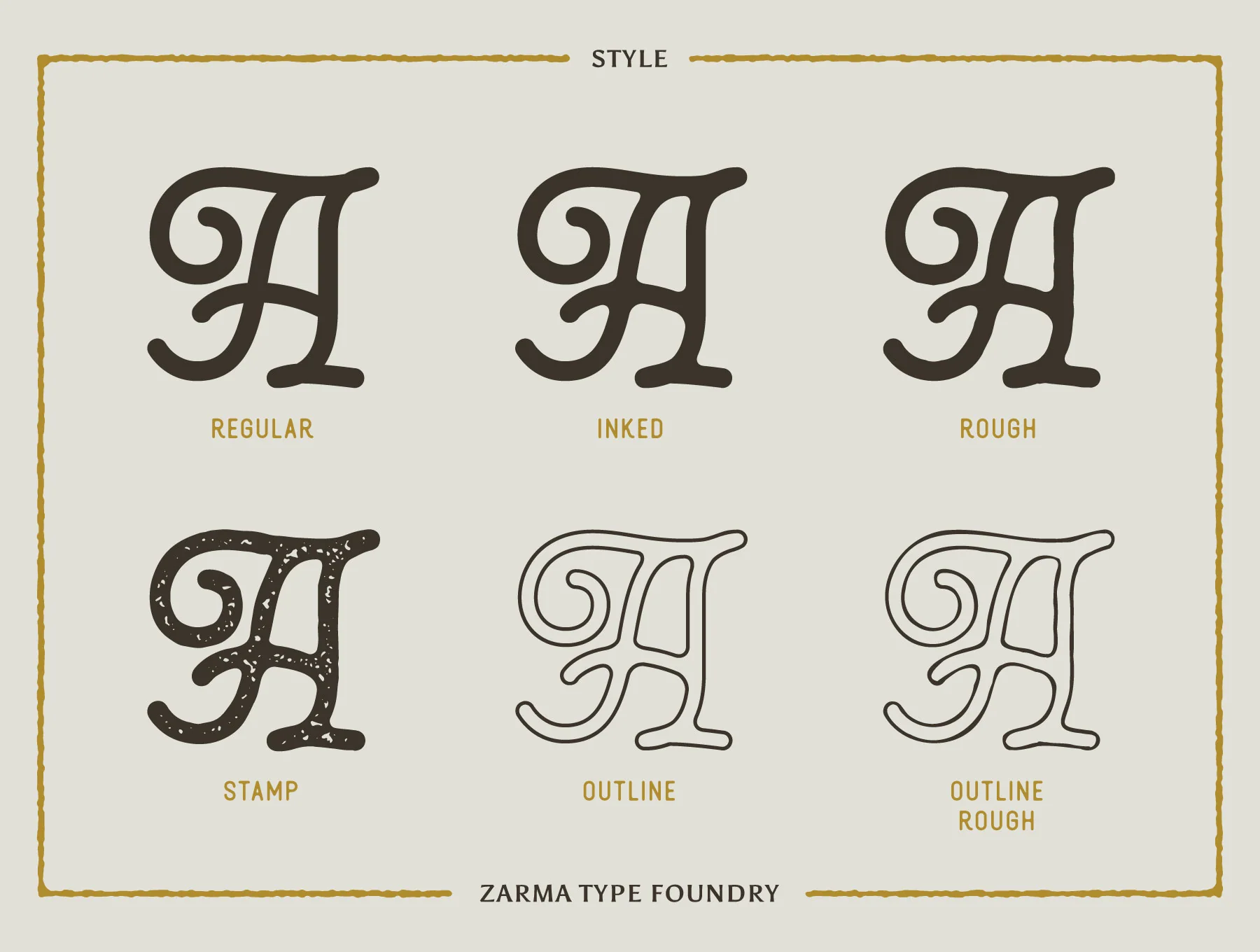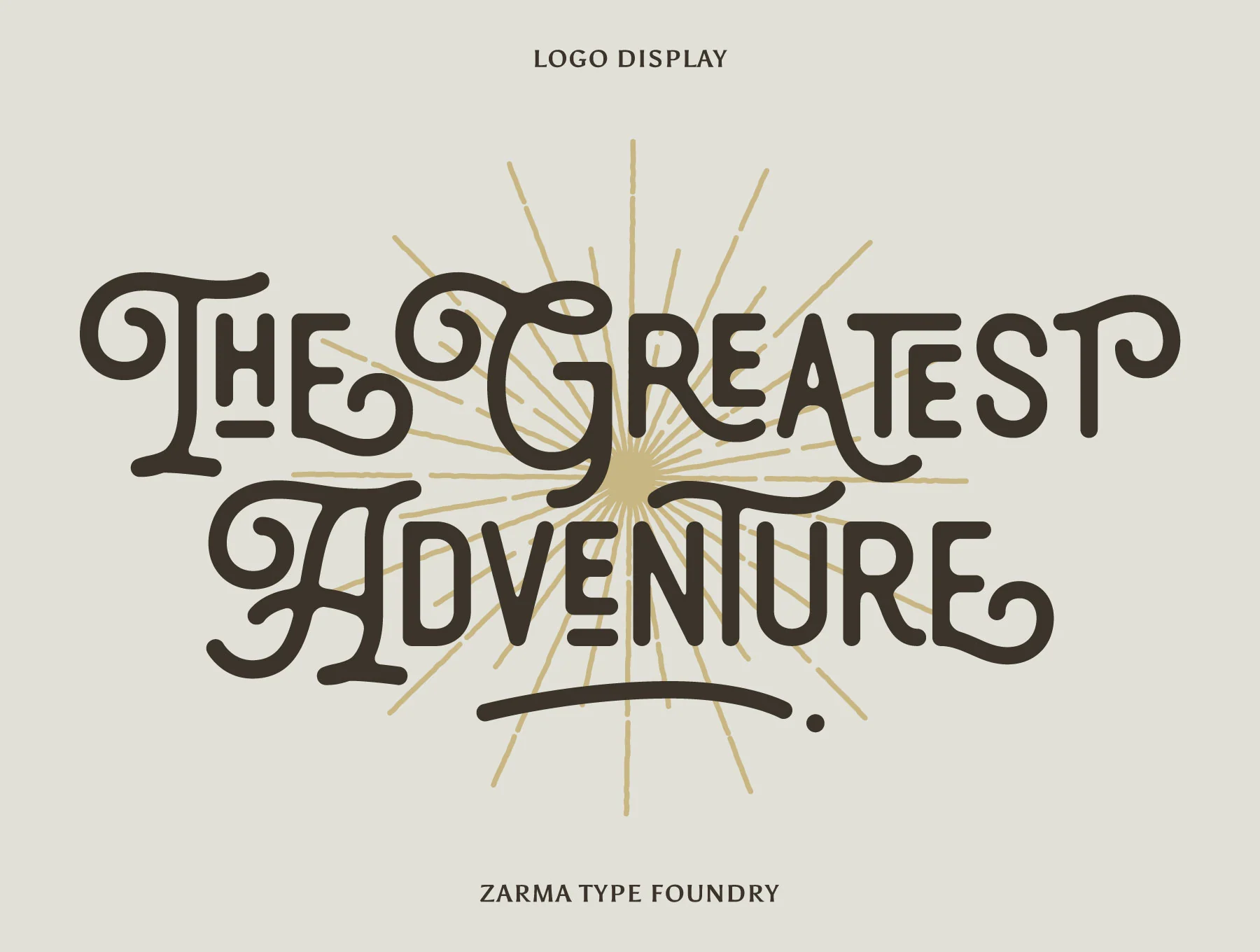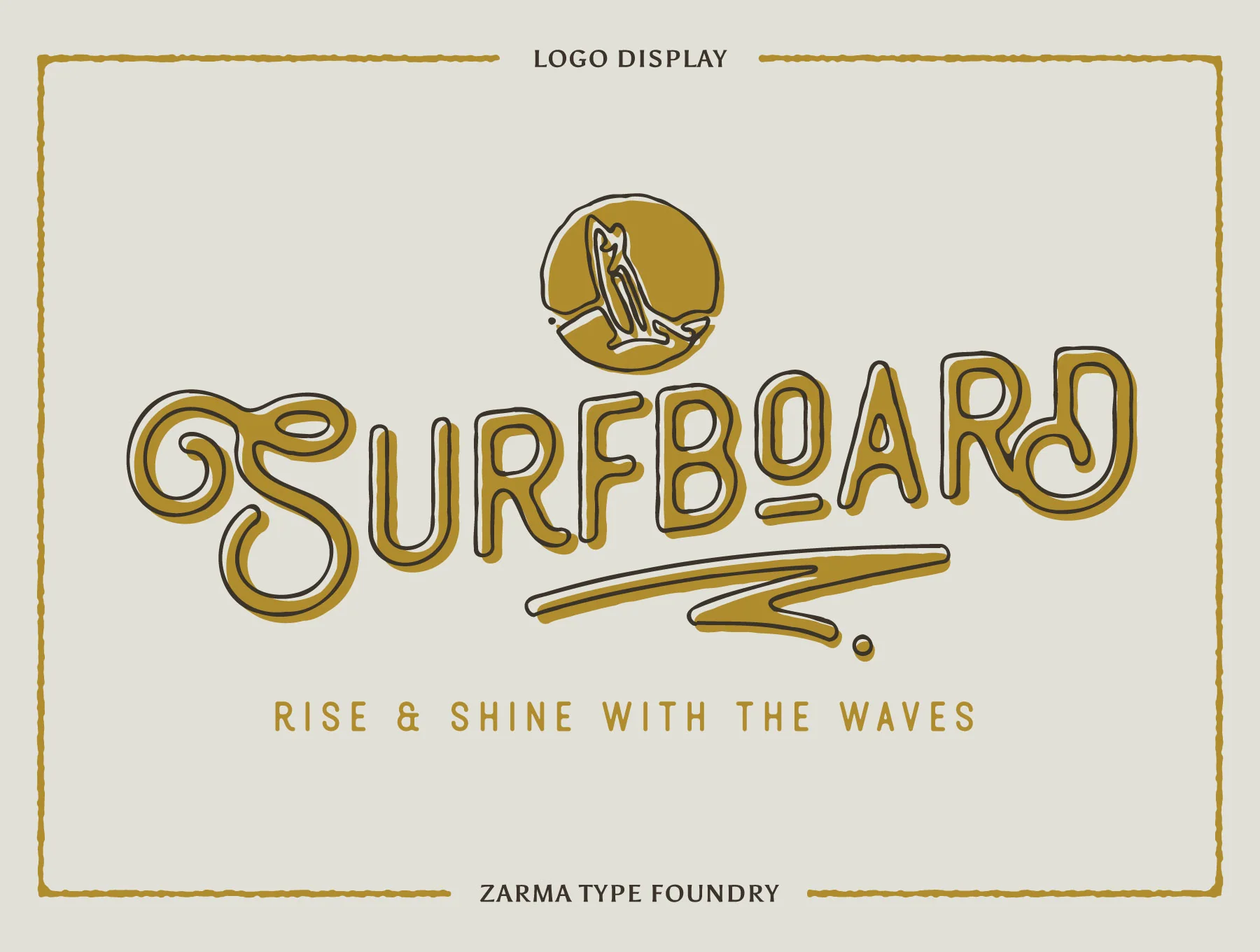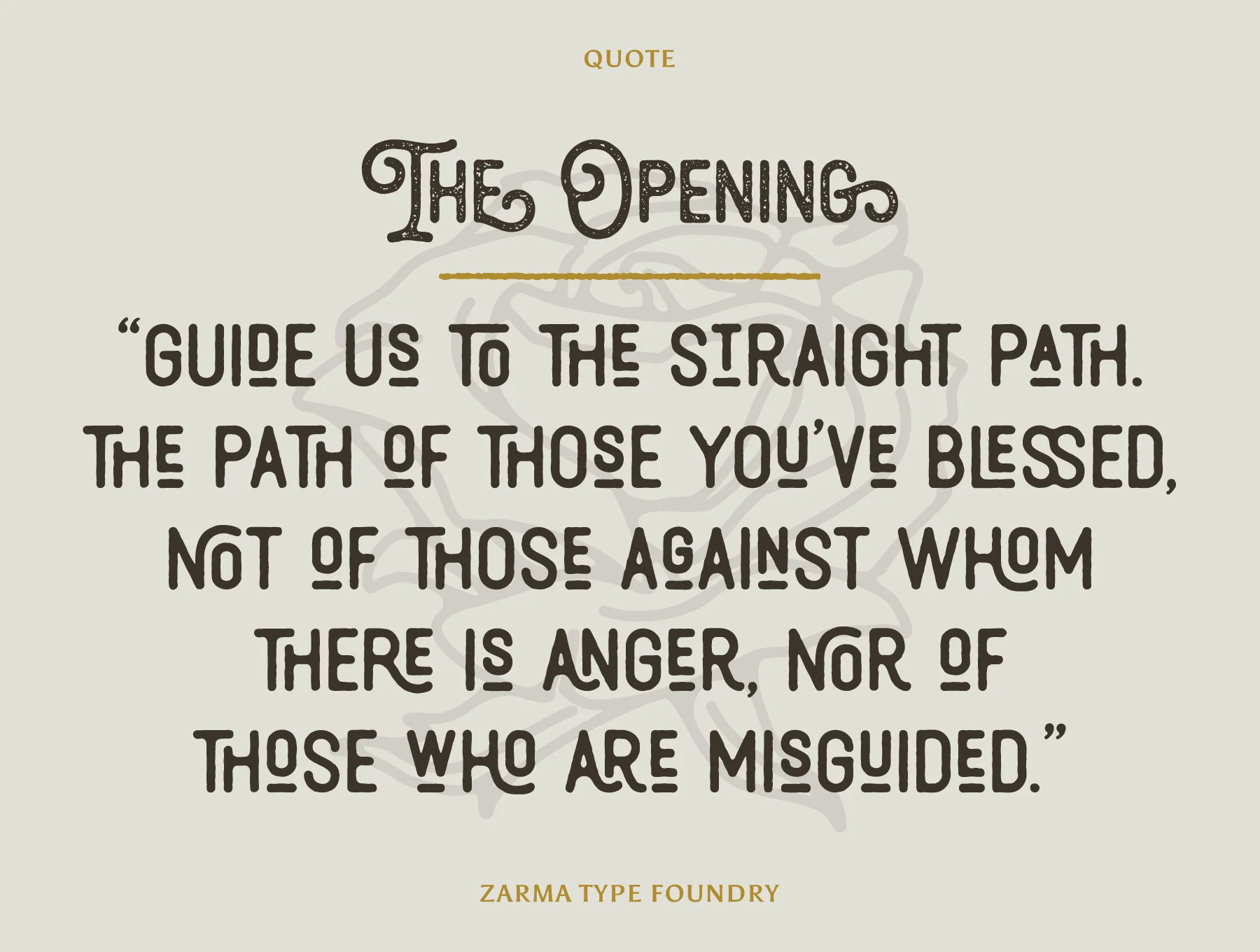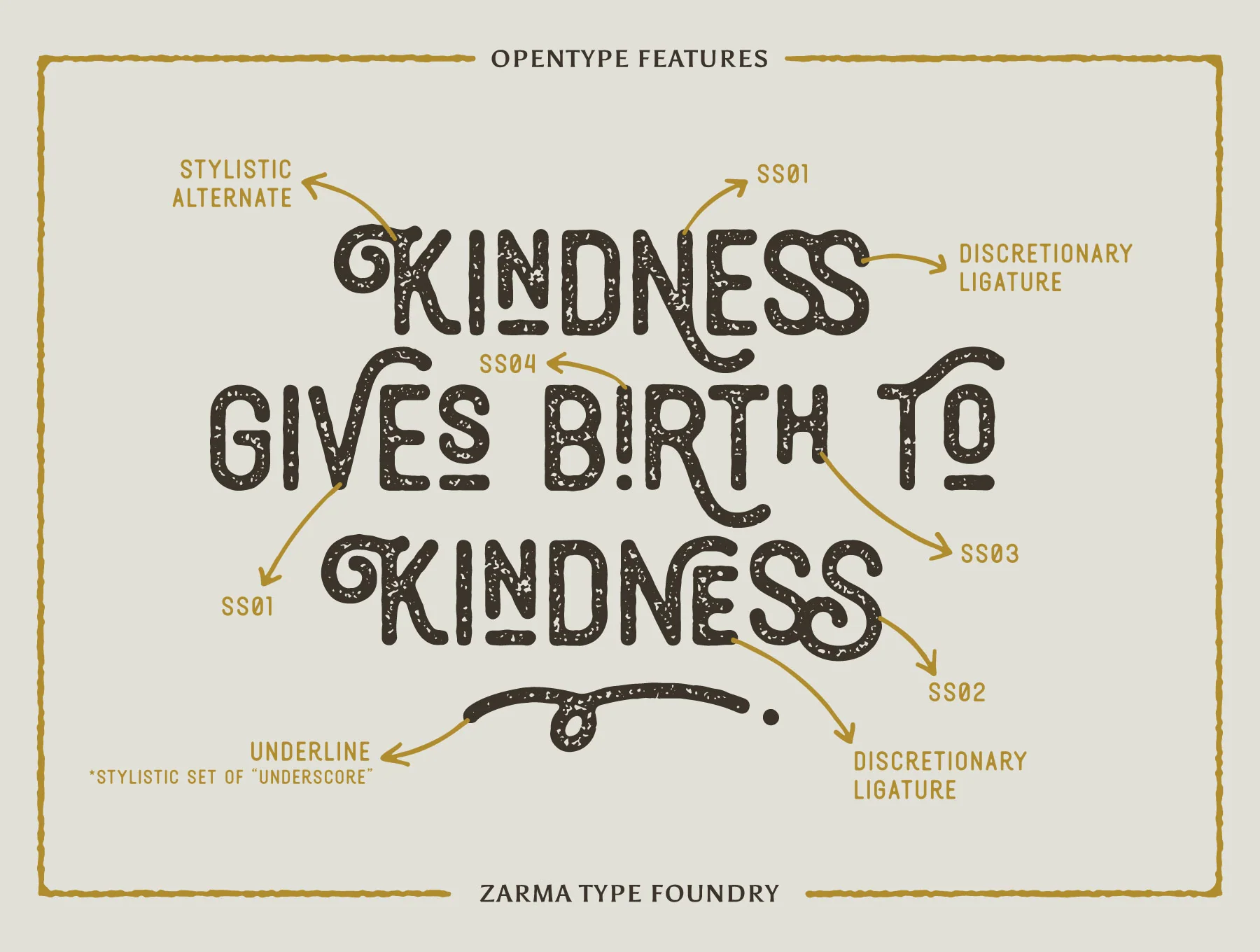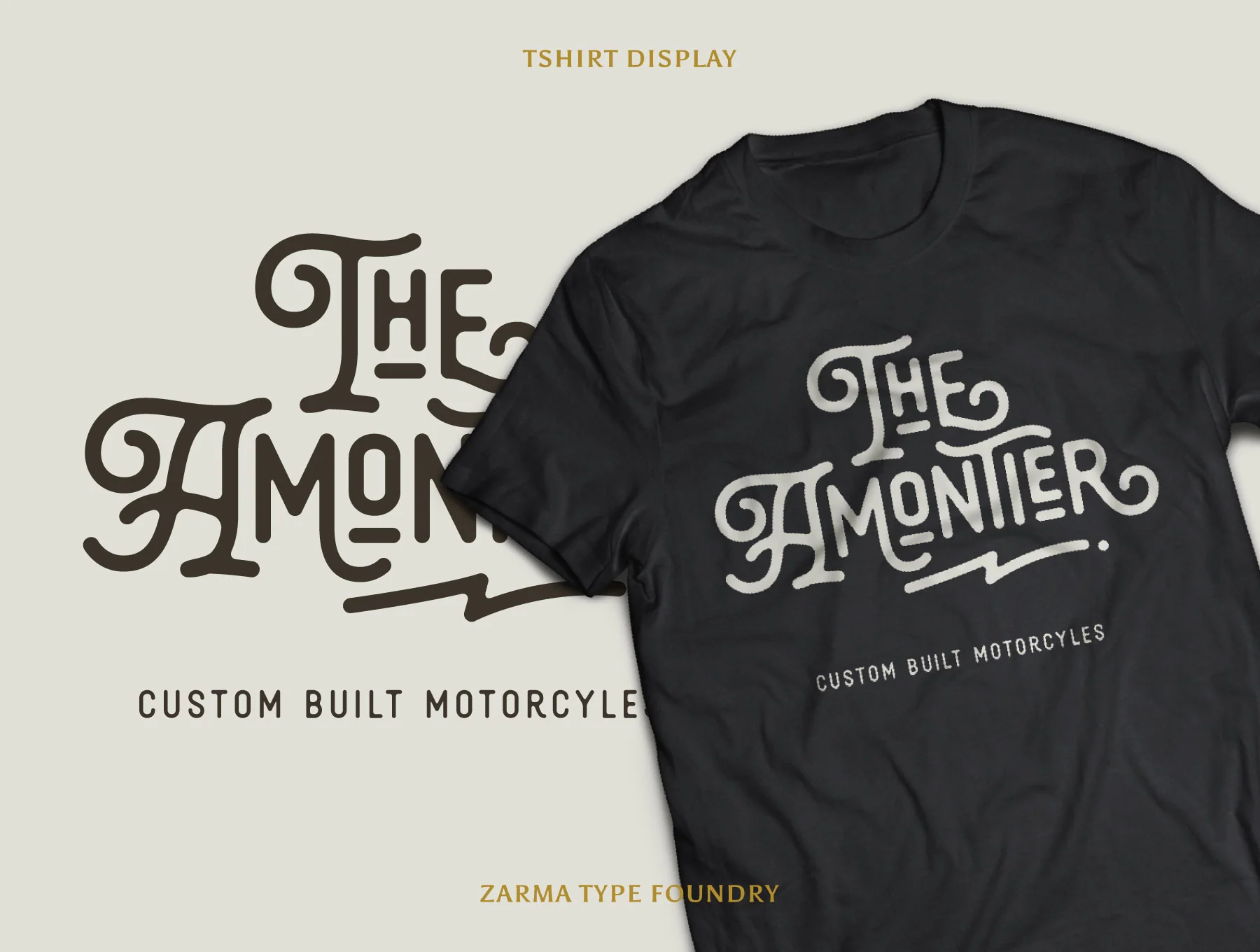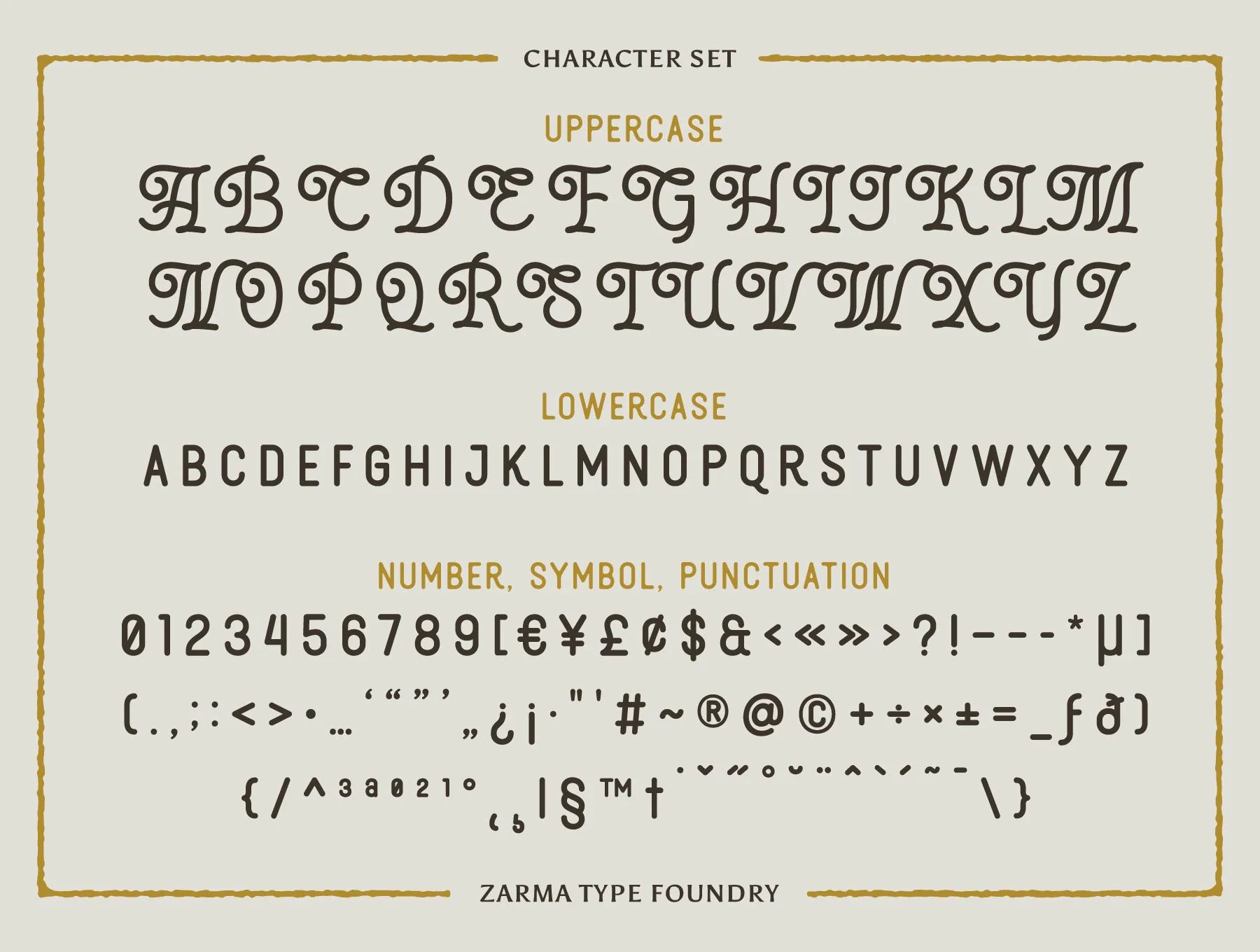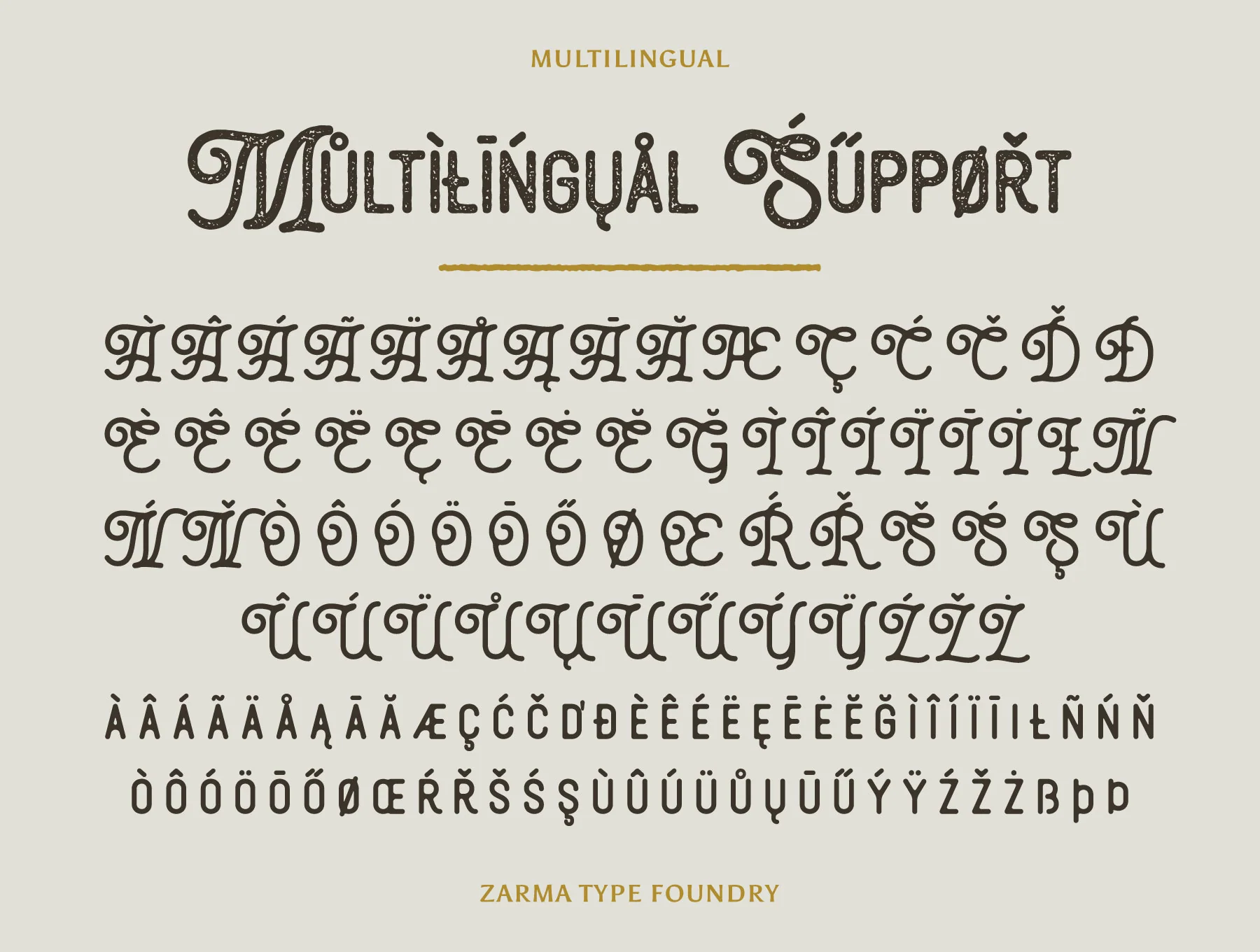
Thourenz Font
Single-Line Retro Font
Caps, small letters, numbers, and symbols
Alternate glyphs plus style sets
Font family with 6 styles
Thourenz blends classic monoline character with a modern type feel. This all-caps vintage font includes six styles: Regular, Inked, Rough, Stamp, Outline, and Outline Rough. Ideal for shirts, branding, labels, posters, packaging, magazines, quotes, and merch. It offers 500+ glyphs, OpenType options, underlines, and alternates accessible through Glyphs in Photoshop or Illustrator.